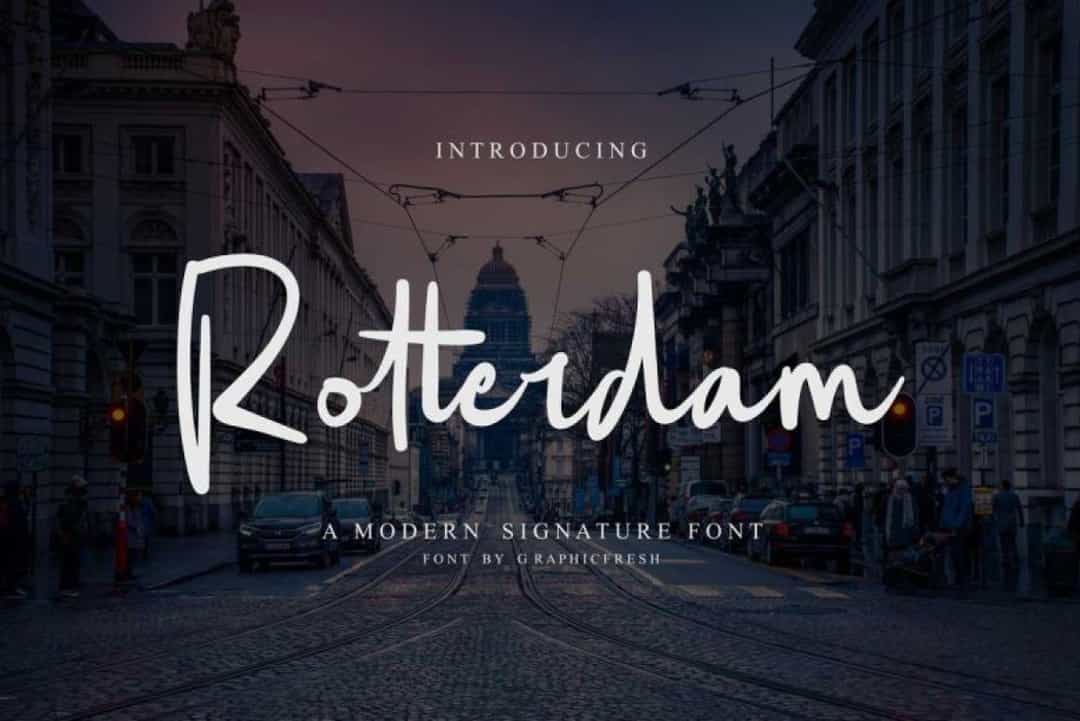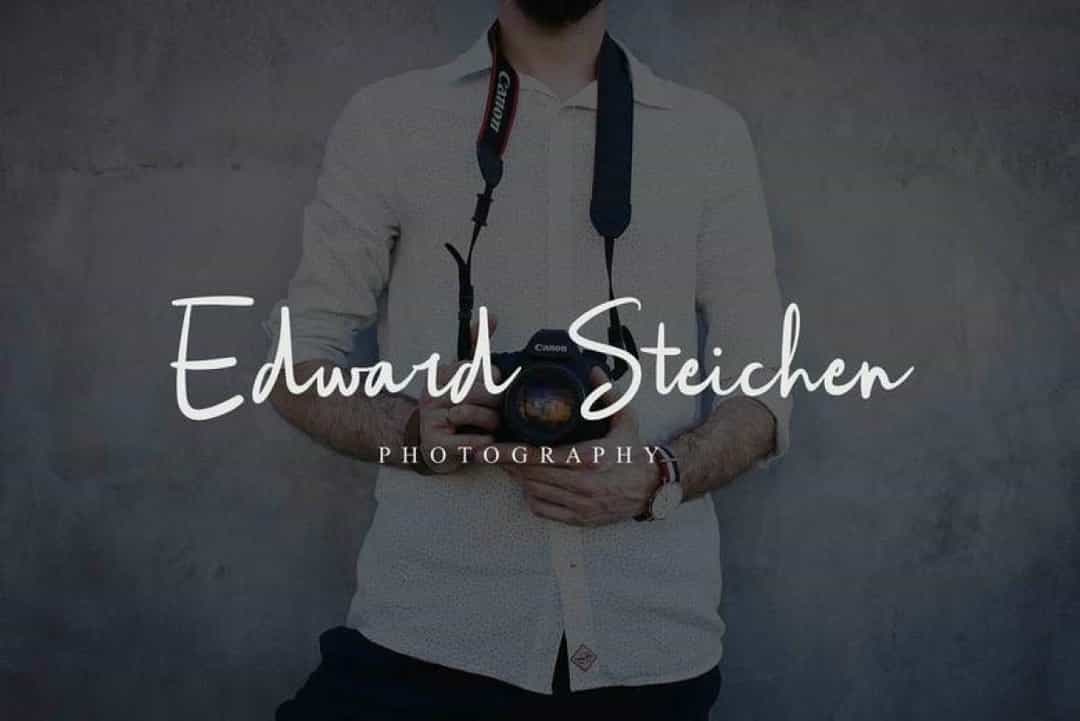
Rotterdam is designed and posted by Graphicfresh as presented in the article. Rotterdam is a delicate font that in addition to its exquisite curves, gives depth to your creations with no trouble. Can be used in logos, name cards, magazines invitations headers, and other designs, as well as for framed art pieces and big-scale production.